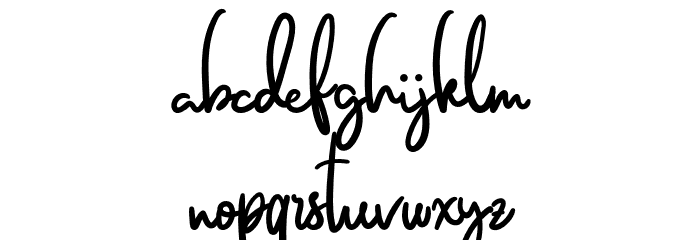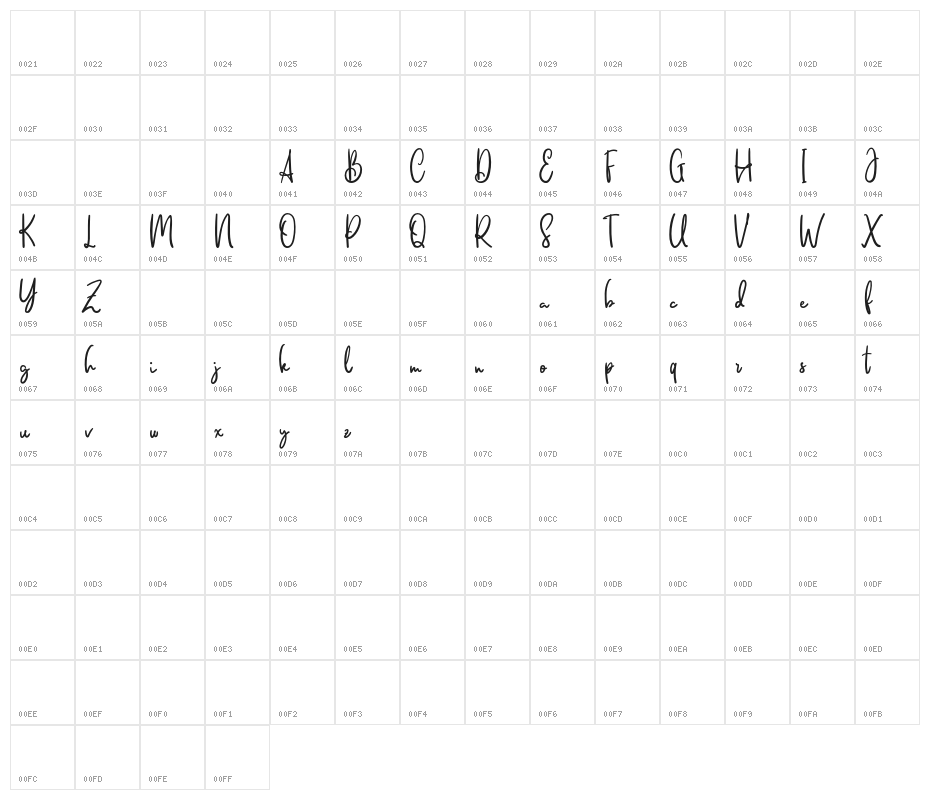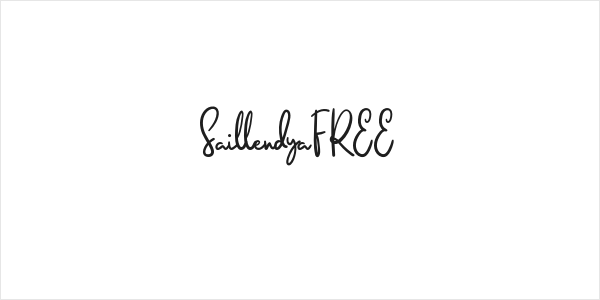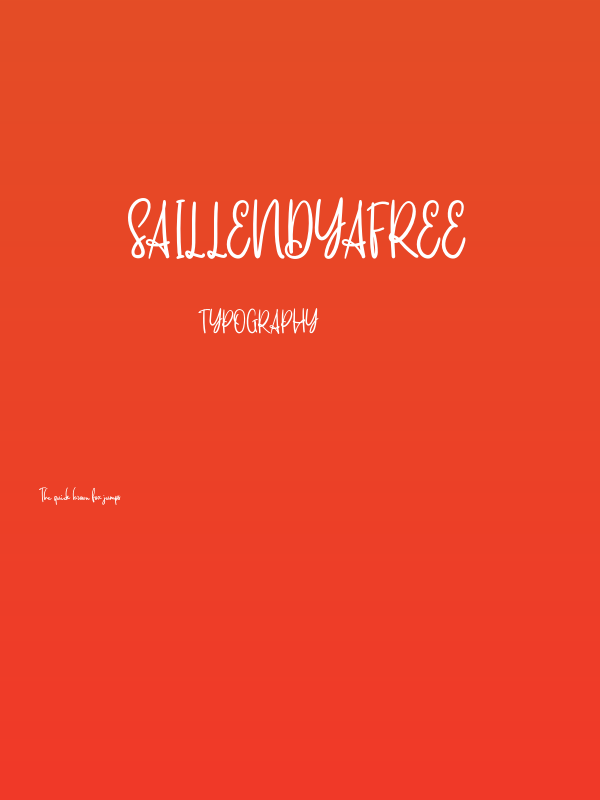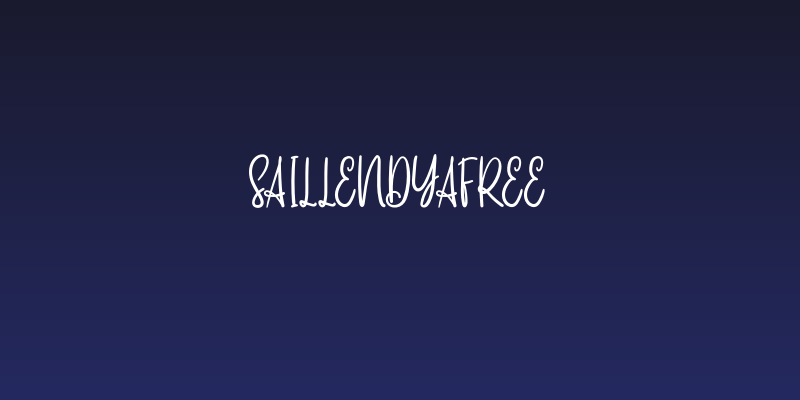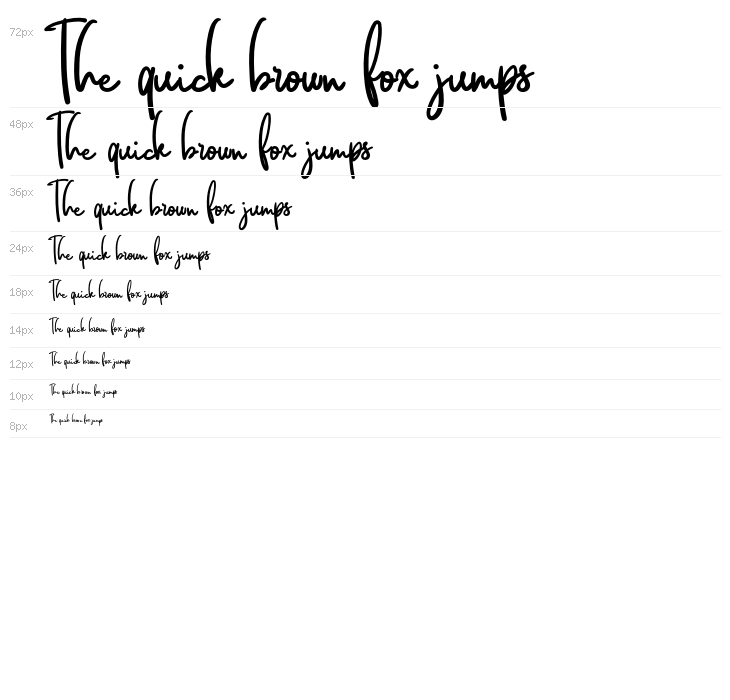
SaillendyaFREE Font
This font features a playful and dynamic script style with a handwritten appearance. The uppercase letters are bold and slightly elongated, giving them a distinctive and artistic flair. The lowercase letters maintain a consistent flow, enhancing the font's casual and approachable feel. The strokes are smooth and fluid, with a slight variation in thickness that adds to its charm. This font is ideal for projects that require a personal touch, such as invitations, greeting cards, or branding materials that aim to convey warmth and creativity.
A playful, handwritten script font with smooth, fluid strokes.
- Font: SaillendyaFREE
- Proposed Projects: Ideal for invitations, greeting cards, branding materials, and creative projects.
- Category: Handwritten
- Use Case: Logos, Headlines, Invitations